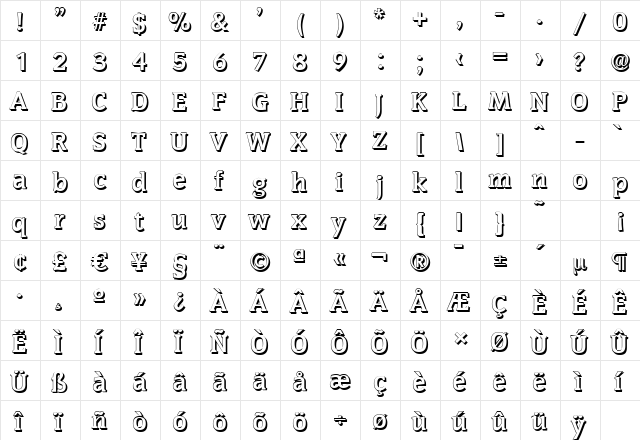
CongressShadow Bold Font Preview
CongressShadow Bold
CongressShadow Bold Font Details
Design Context for CongressShadow Typeface
CongressShadow brings ornamental detail and strong personality to headlines and identities, where visual impact matters more than quiet functionality. Its bold stroke weight gives it real presence on the page.
Font Pairing: Pair with a clean neutral sans-serif for body copy to let CongressShadow's character lead without overwhelming the composition.
Pro Tip: Use CongressShadow exclusively at display sizes — it was designed to be seen, not read at length. Let a neutral companion handle body copy.